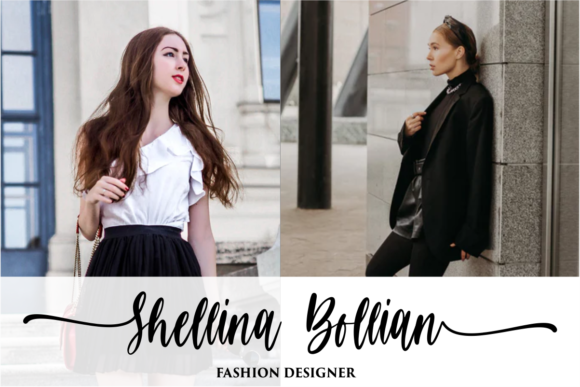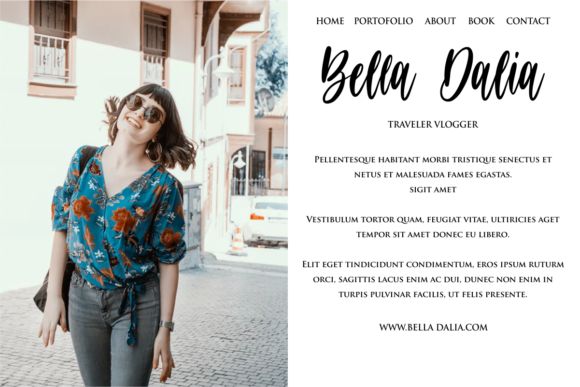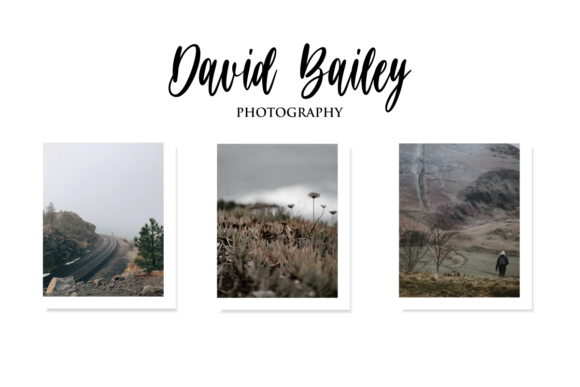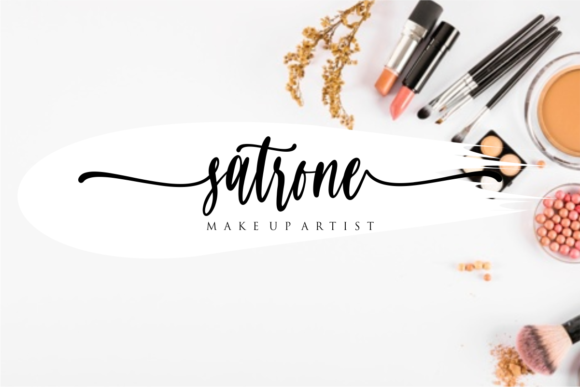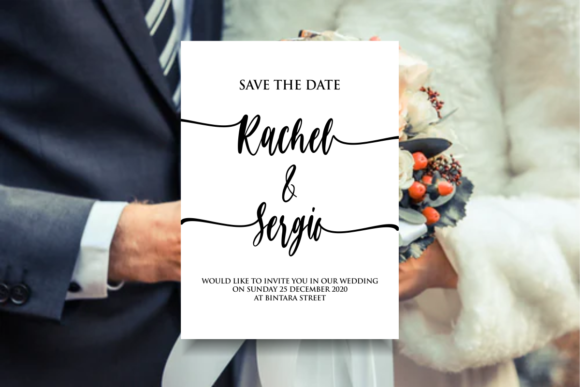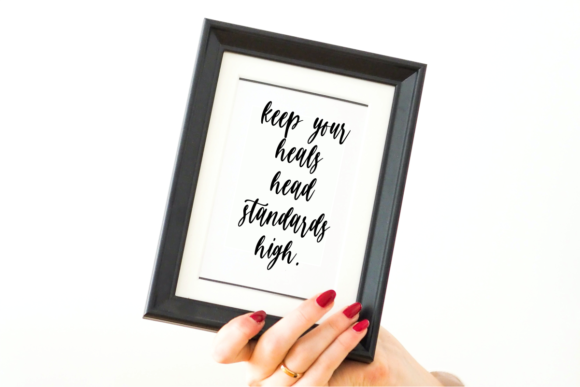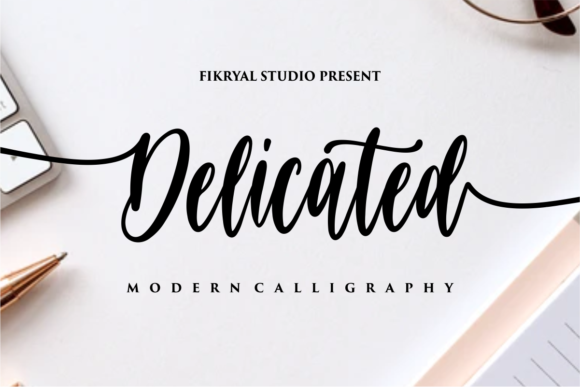
Introducing Delicated Font: Elevate Your Designs with Elegance and Sophistication
In the world of typography, a well-crafted font can make all the difference in elevating your designs to new heights. For designers and crafters seeking to add a touch of elegance and sophistication to their projects, Delicated Font is an exceptional choice. This beautiful, handwritten font is designed to bring a sense of refinement and luxury to your work, making it perfect for a wide range of applications.
What Makes Delicated Font Special?
Delicated Font is an elegant and flowing handwritten font that boasts a range of features that set it apart from other fonts. Here are just a few reasons why Delicated Font is a standout:
• Varying Baseline for a Natural Look: The font features a varying baseline, which gives it a natural, organic look that’s perfect for creating a sense of movement and fluidity in your designs.
• Smooth Lines and Gorgeous Glyphs: Delicated Font is characterized by smooth lines and gorgeous glyphs that add a touch of sophistication to any text. The font’s elegant lines and curves make it perfect for creating beautiful headings, titles, and quotes.
• Stunning Alternates for Added Versatility: In addition to its standard glyphs, Delicated Font also includes stunning alternates that allow you to add variety and interest to your text. With these alternates, you can create unique and eye-catching designs that showcase your creativity.
A Perfect Balance of Classic and Contemporary
Delicated Font strikes a perfect balance between classic calligraphic influences and modern, contemporary design. The font’s elegant lines and flowing curves evoke the feeling of traditional calligraphy, while its clean and simple aesthetic ensures that it feels fresh and modern. This balance makes Delicated Font an excellent choice for designers who want to create sophisticated, high-end designs that still feel current and on-trend.
Use Delicated Font in Your Projects
Delicated Font is an incredibly versatile font that can be used in a wide range of projects, including:
• Branding and Logo Design: Use Delicated Font to create elegant and sophisticated logos, business cards, and branding materials that showcase your company’s personality and style.
• Wedding and Event Design: Delicated Font is perfect for creating beautiful wedding invitations, programs, and other event materials that require a touch of elegance and sophistication.
• Packaging and Product Design: Add a touch of luxury to your product packaging with Delicated Font, which is perfect for creating labels, tags, and other packaging materials.
• Graphic Design and Illustration: Use Delicated Font to add a touch of elegance to your graphic designs, illustrations, and artwork.
Why Choose Delicated Font?
With so many fonts to choose from, why should you choose Delicated Font for your next project? Here are just a few reasons:
• Unique and Eye-Catching: Delicated Font is a unique and eye-catching font that will help your designs stand out from the crowd.
• Elegant and Sophisticated: The font’s elegant and sophisticated aesthetic makes it perfect for creating high-end designs that showcase your skills and creativity.
In conclusion, Delicated Font is an exceptional choice for designers and crafters seeking to add a touch of elegance and sophistication to their projects. With its unique features, beautiful design, and versatility, Delicated Font is sure to become a go-to font in your collection.